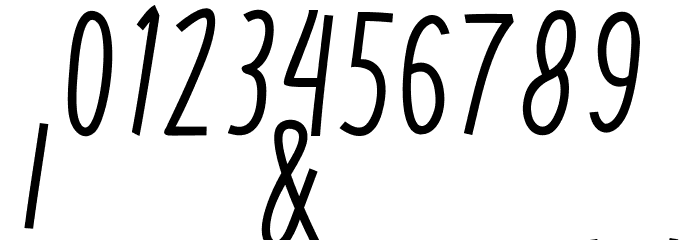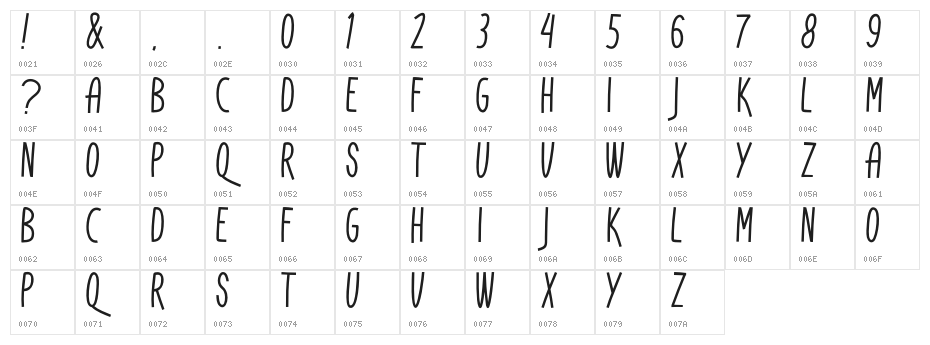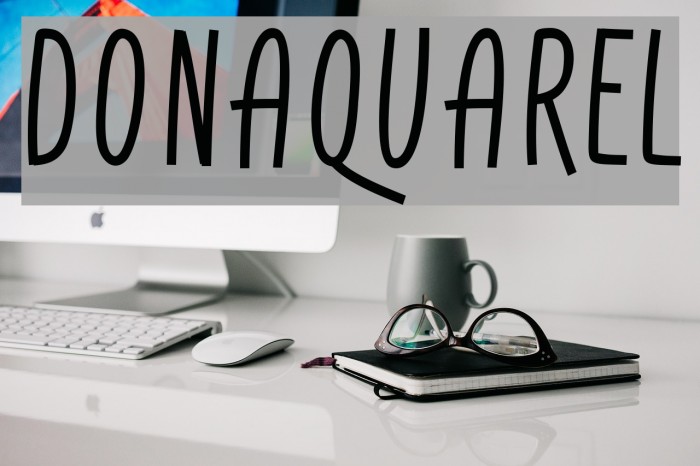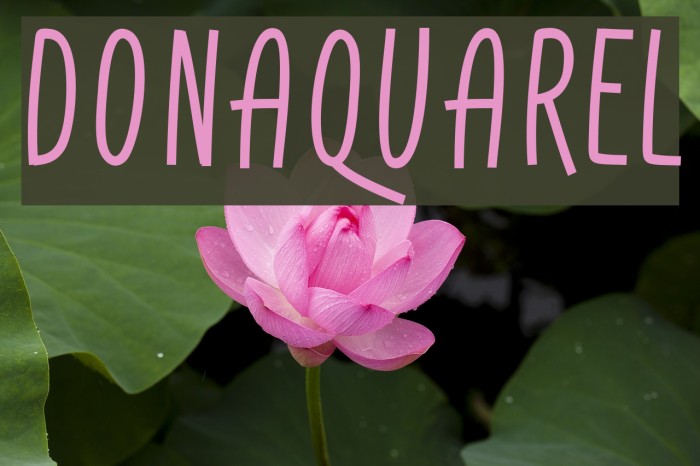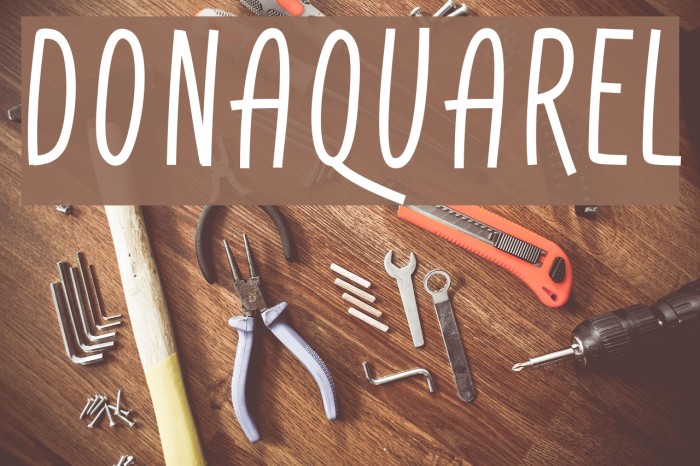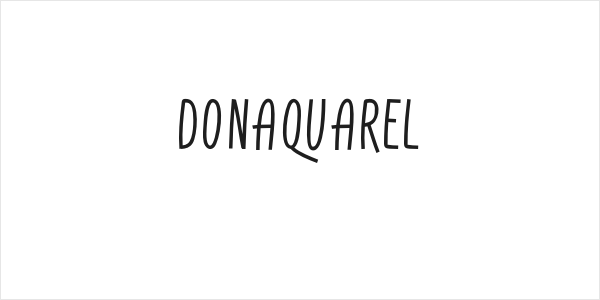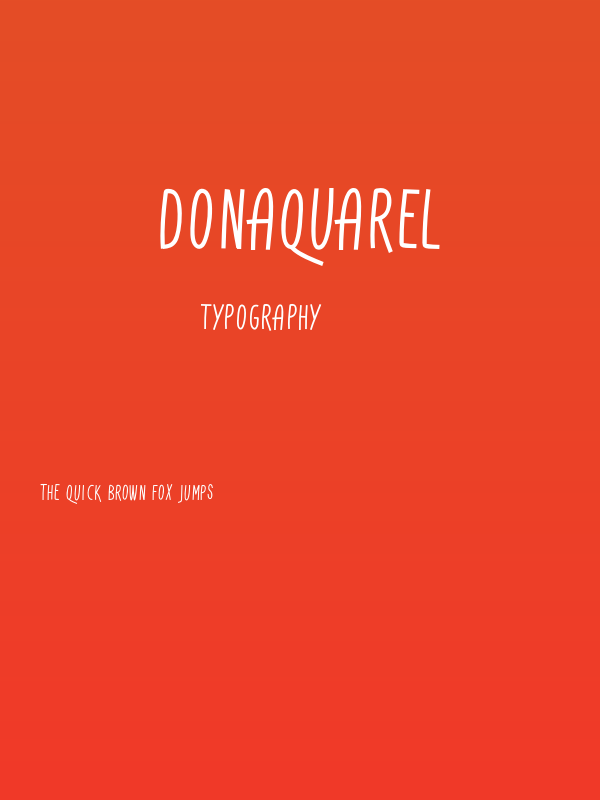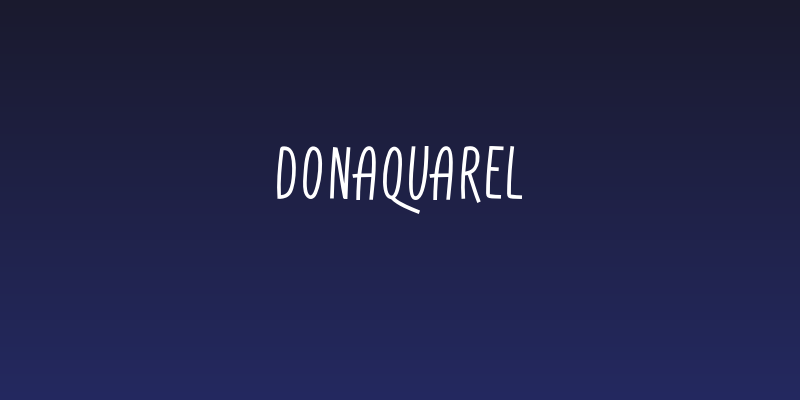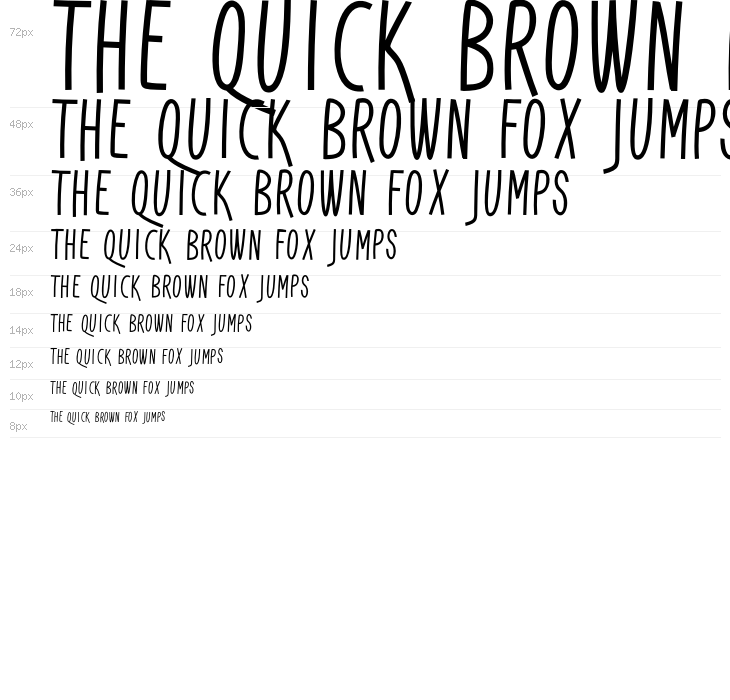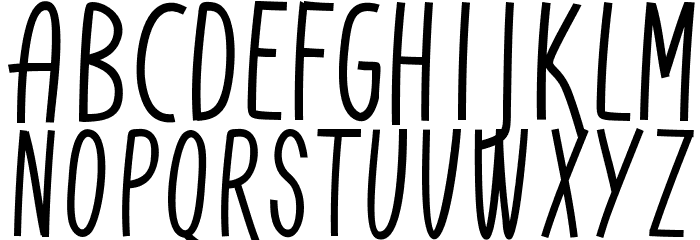
DonAquarel Font
DonAquarel Description
This font features a playful and artistic style with a hand-drawn appearance. The letters are tall and slightly narrow, with a consistent stroke width that gives it a clean and modern look. The uppercase and lowercase letters maintain a cohesive design, while the numbers and special characters blend seamlessly with the overall aesthetic. The font's unique character is evident in its slightly irregular lines, which add a touch of whimsy and charm. This makes it suitable for creative projects that require a personal and approachable feel.